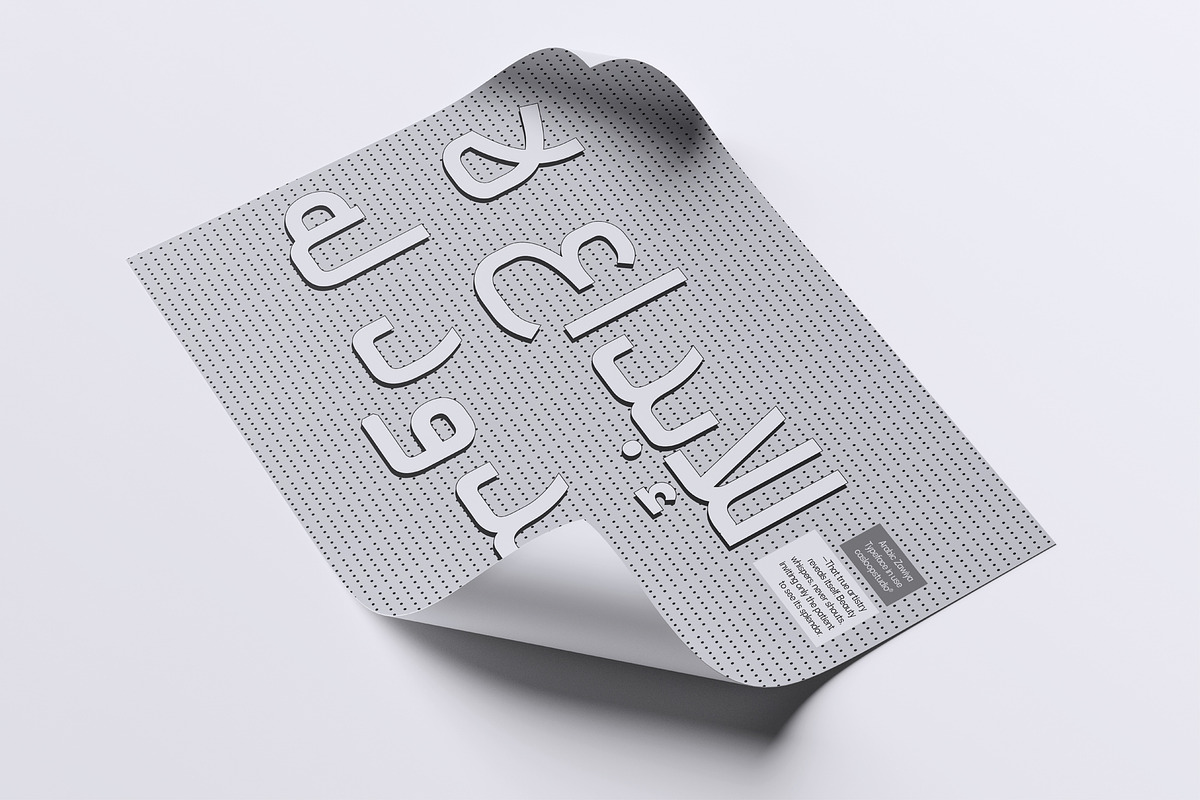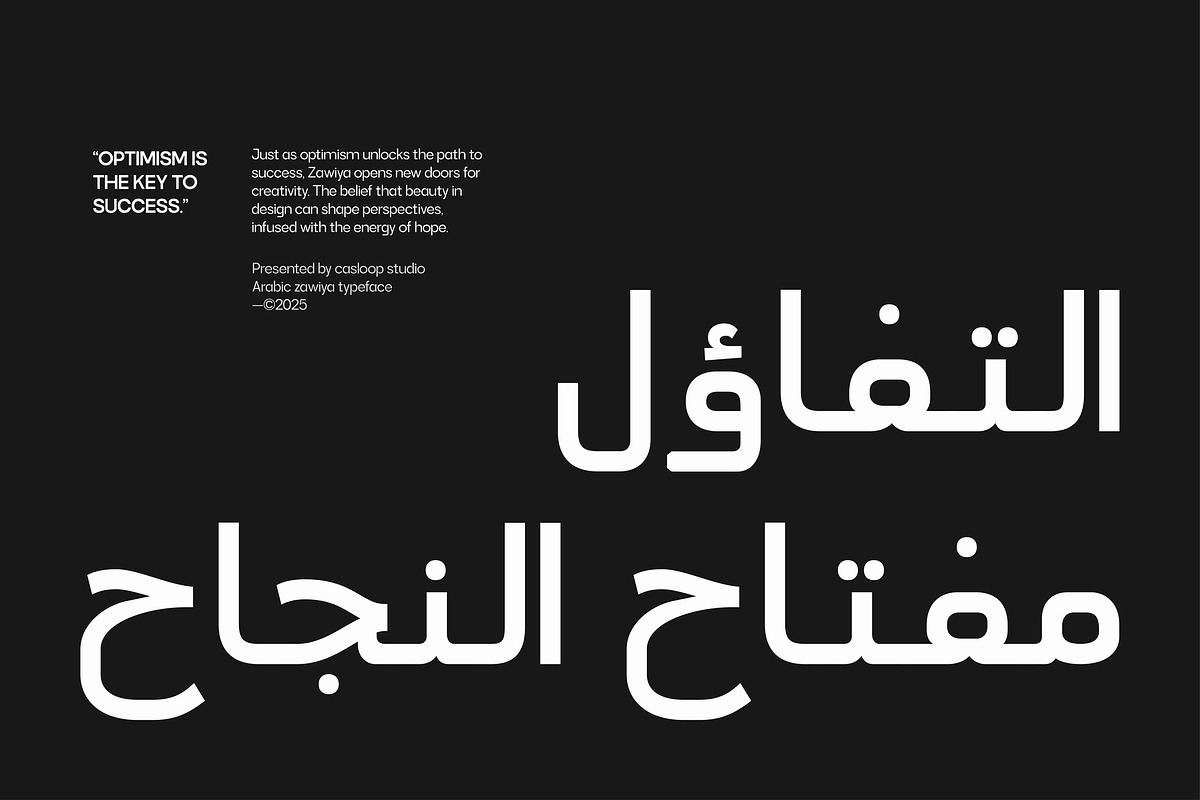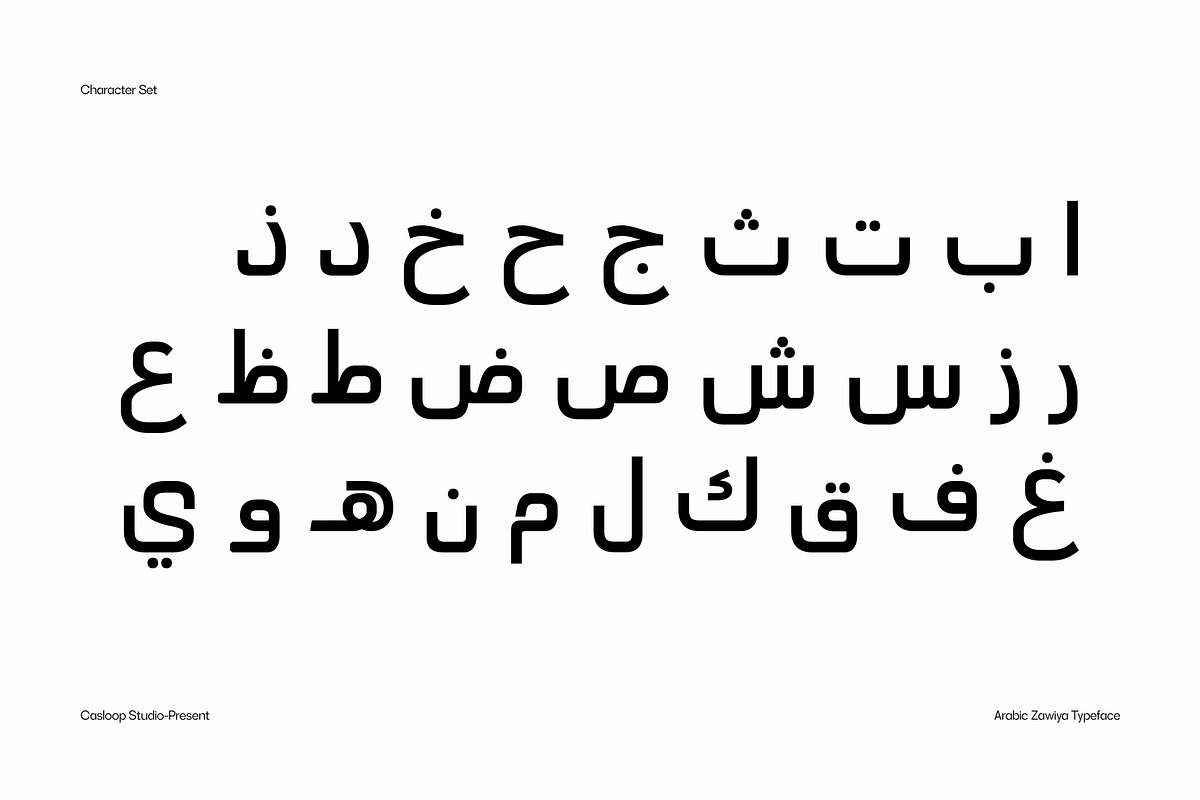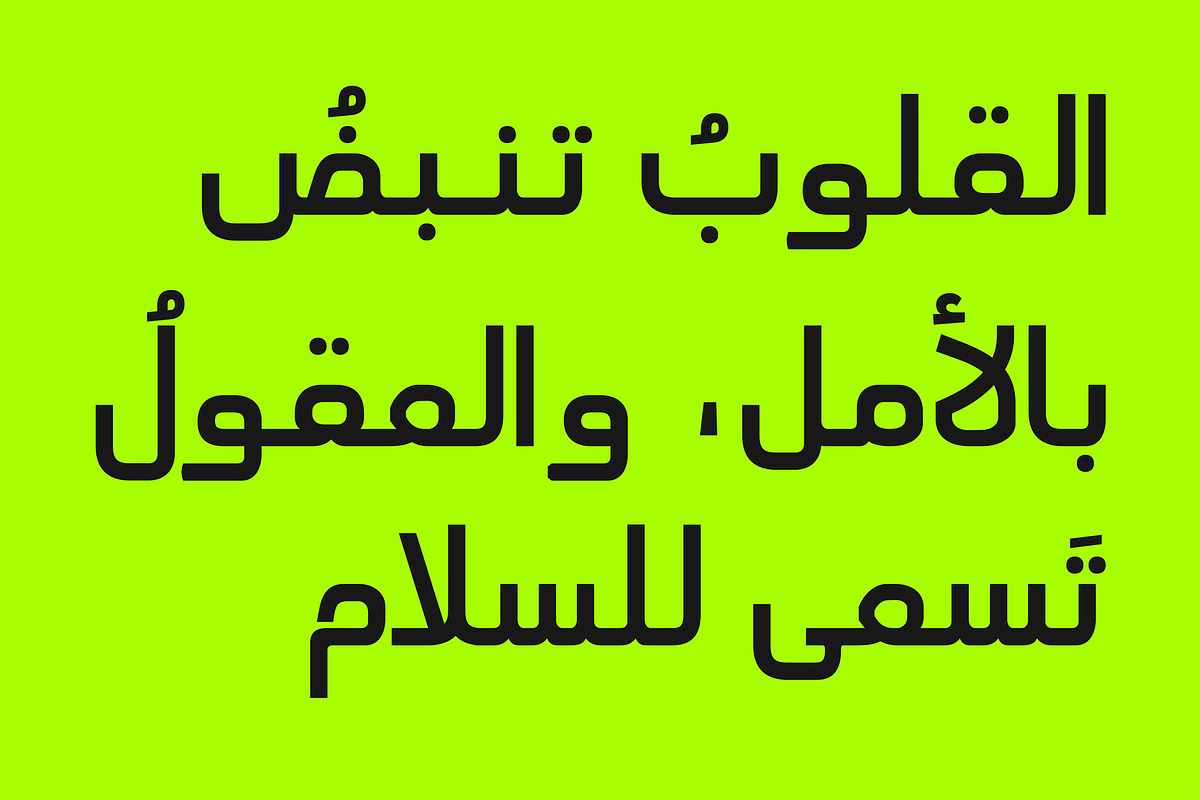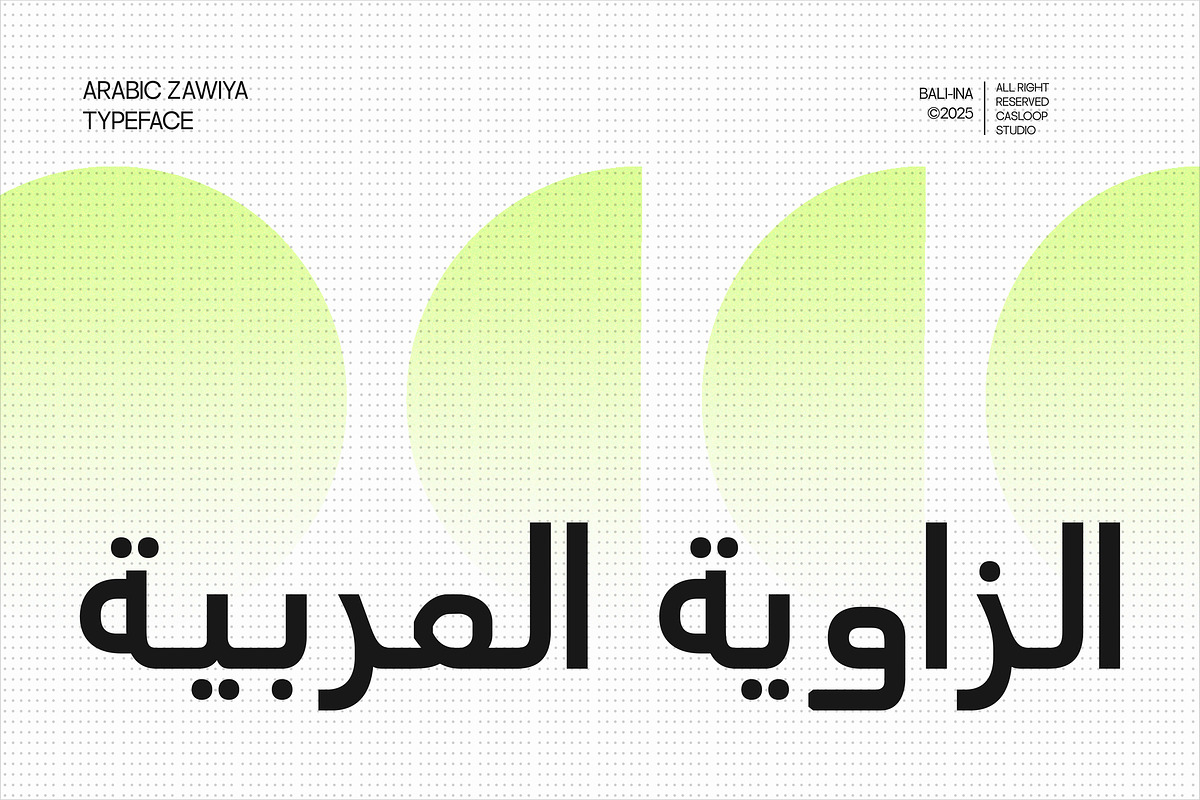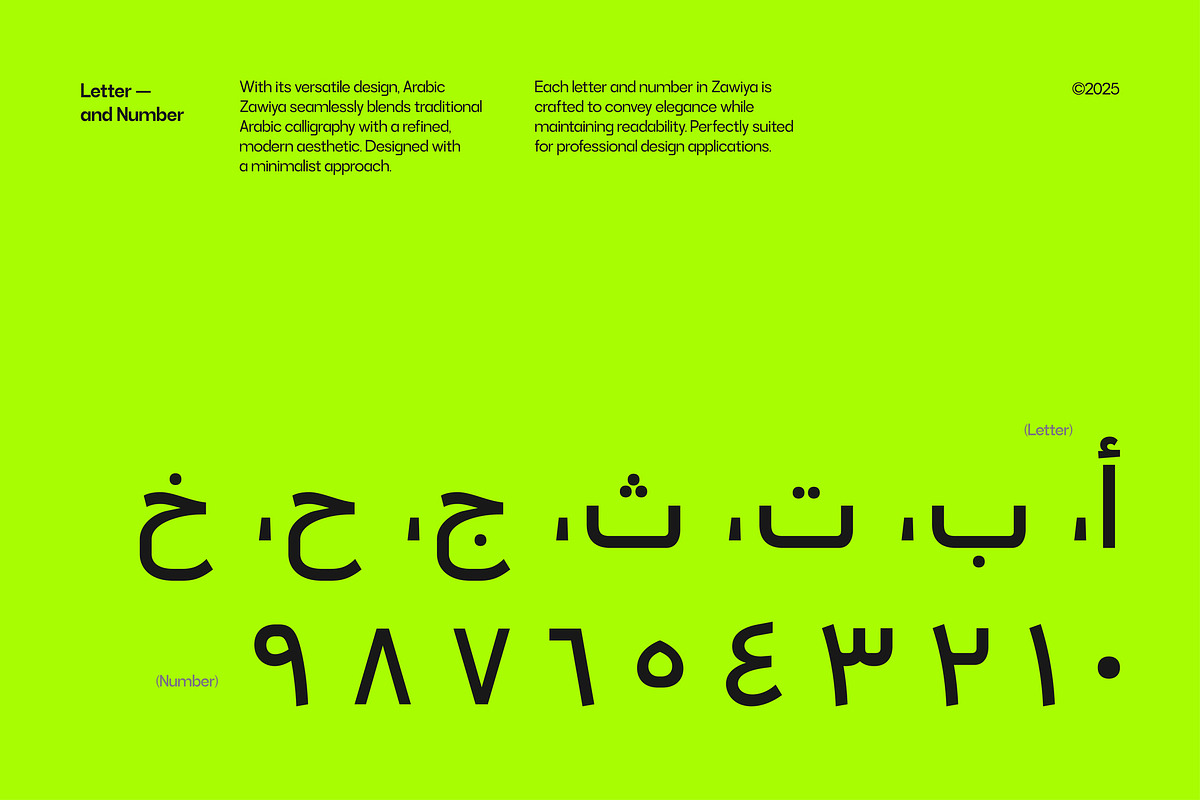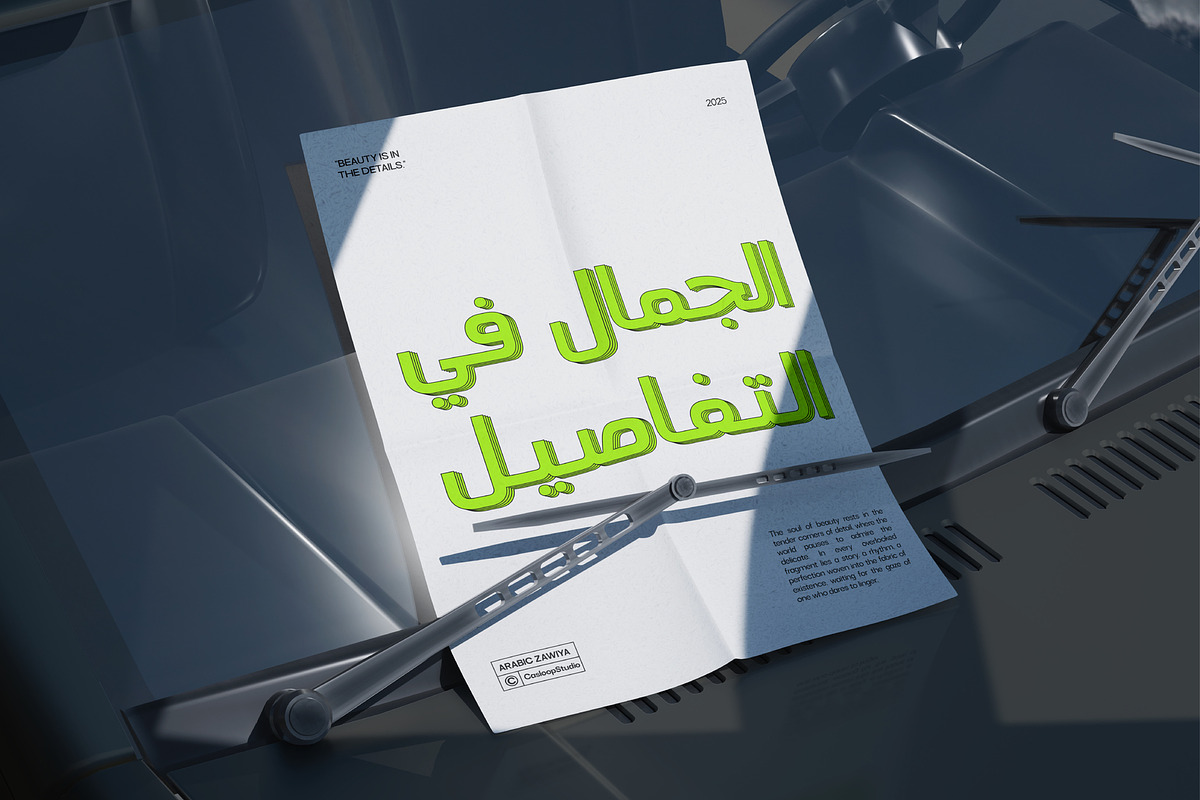
Arabic Zawiya - Arabic Display Font
Introducing Arabic Zawiya Typeface – Tradition Meets Minimalist Vibes Say hello to Arabic Zawiya Typeface, your new go-to Arabic font that effortlessly blends the beauty of traditional calligraphy with a clean, modern look. Whether you're designing for brands, creating stunning layouts, or crafting something truly unique, Zawiya has your back with style and precision.
- Versatility for Days: Perfect for logos, branding, web design, signage
- Timeless Meets Modern: A fresh take on Arabic typography that keeps it classy and clean.
- Precision in Every Curve: Balanced and legible, whether you’re working on bold headlines or fine details.
- Arabic Glyph Set: Letters and numerals to punctuation and more, language support: Arabic, Kurdish, Sorani, Mazanderani, Persian, Urdu
- Diacritic Magic (Tashkil): Need harakat or tashkil? Zawiya's got you covered. Just type Arabic text using an Arabic keyboard, and enjoy perfect support for diacritics to keep your typography looking pro.